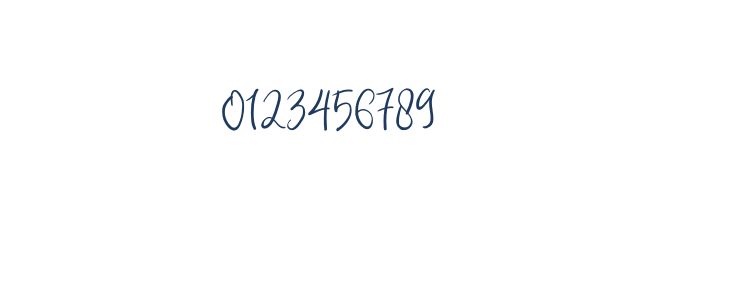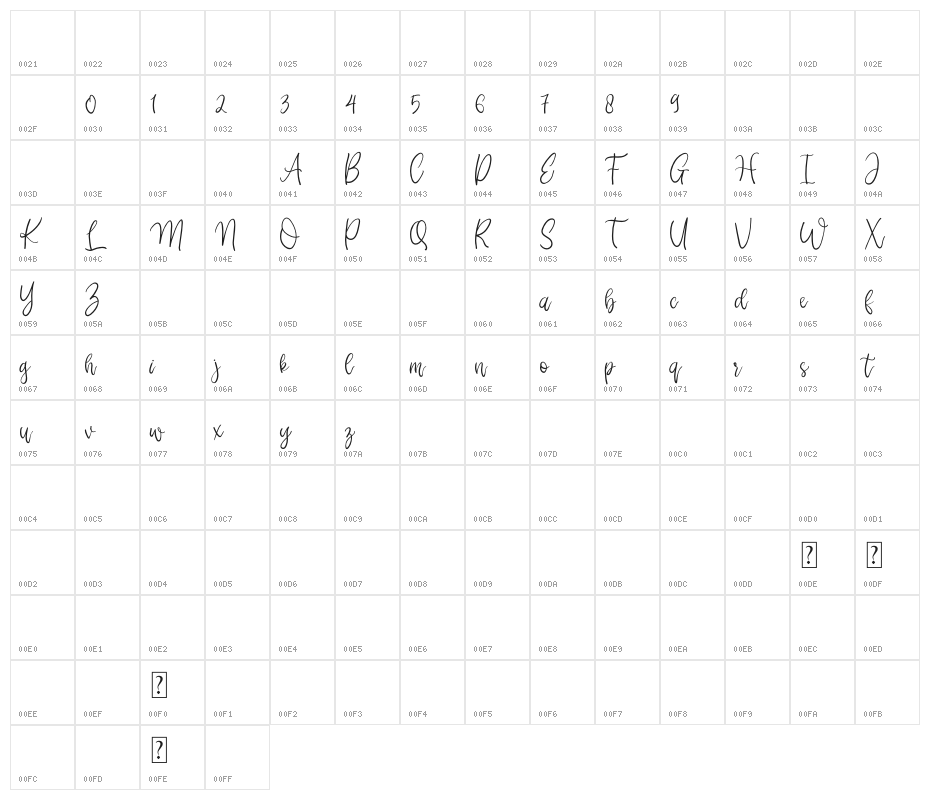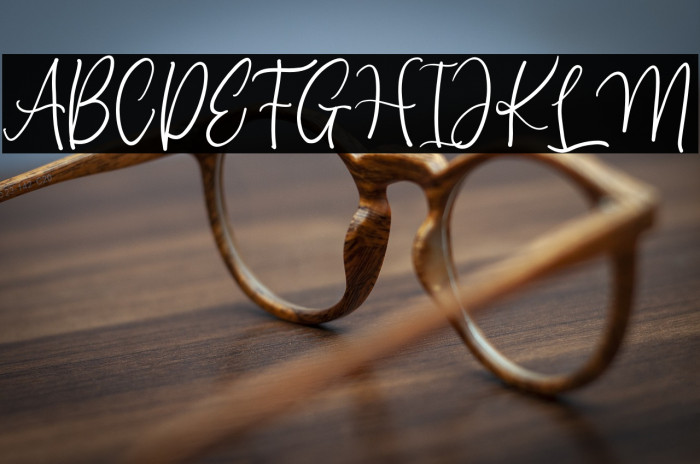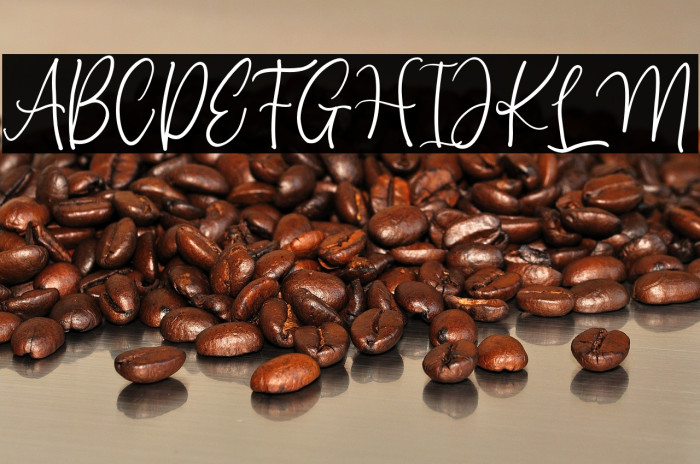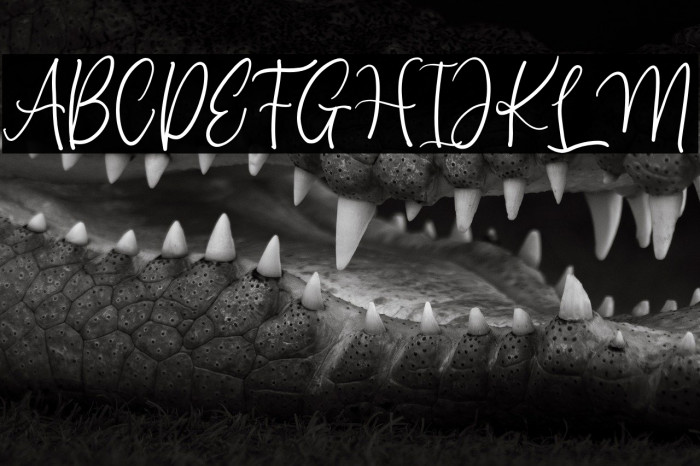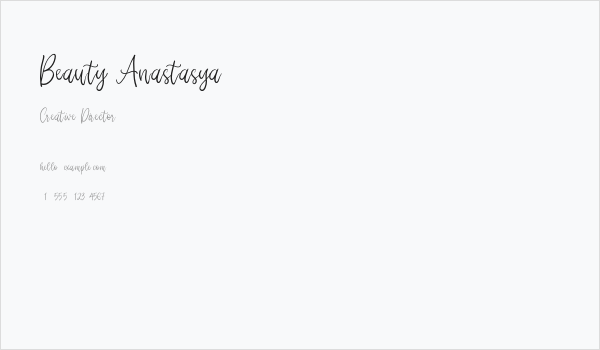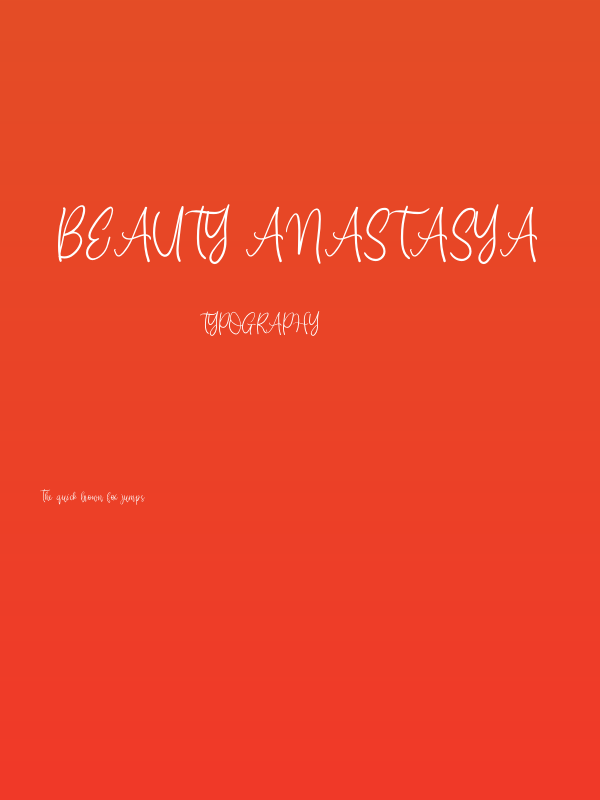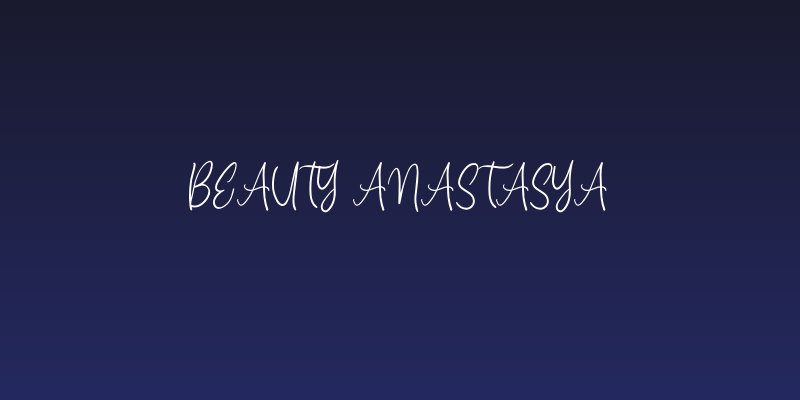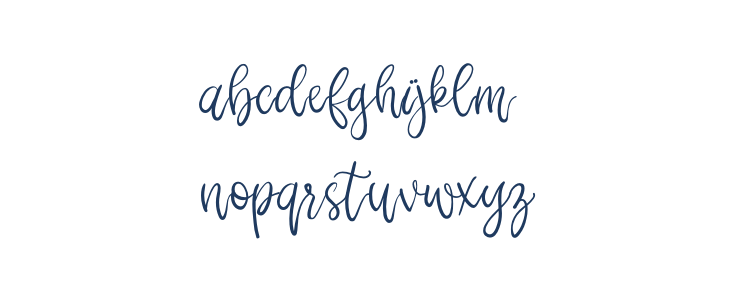
Beauty Anastasya Font
Beauty Anastasya Description
This font features an elegant and flowing script style, characterized by its smooth, cursive strokes and graceful curves. The uppercase letters are tall and slightly narrow, with distinctive loops and flourishes that add a touch of sophistication. The lowercase letters maintain a consistent flow, with rounded forms and a slight slant that enhances readability. Numbers are designed with the same fluidity, ensuring a cohesive look across all characters. This font exudes a sense of elegance and charm, making it ideal for projects that require a personal and artistic touch.
| Proposed Projects | Ideal for wedding invitations, greeting cards, branding, and elegant logo designs. |